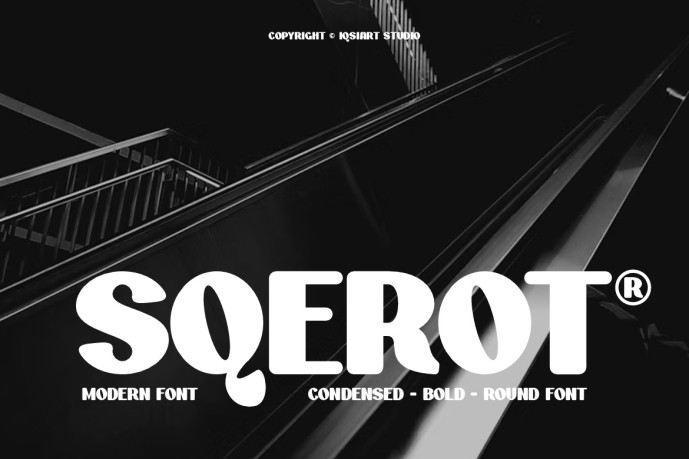
Sqerot – Bold Round Font
Designer: IQSIART STUDIO
Sqerot Font is a bold and authentic display typeface that suits a variety of design needs. We offer a wide range of themes and font styles — visit our profile to explore more and find the perfect style for your project.